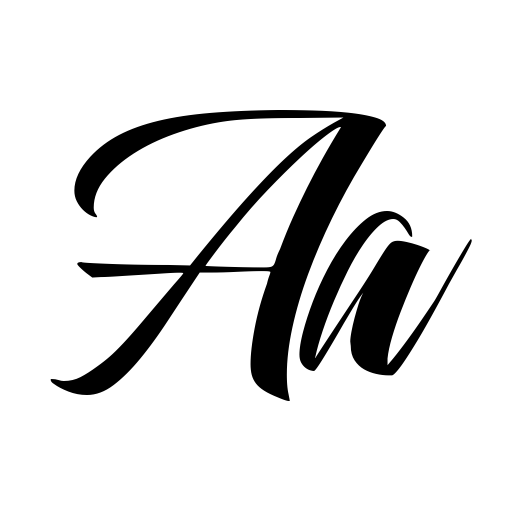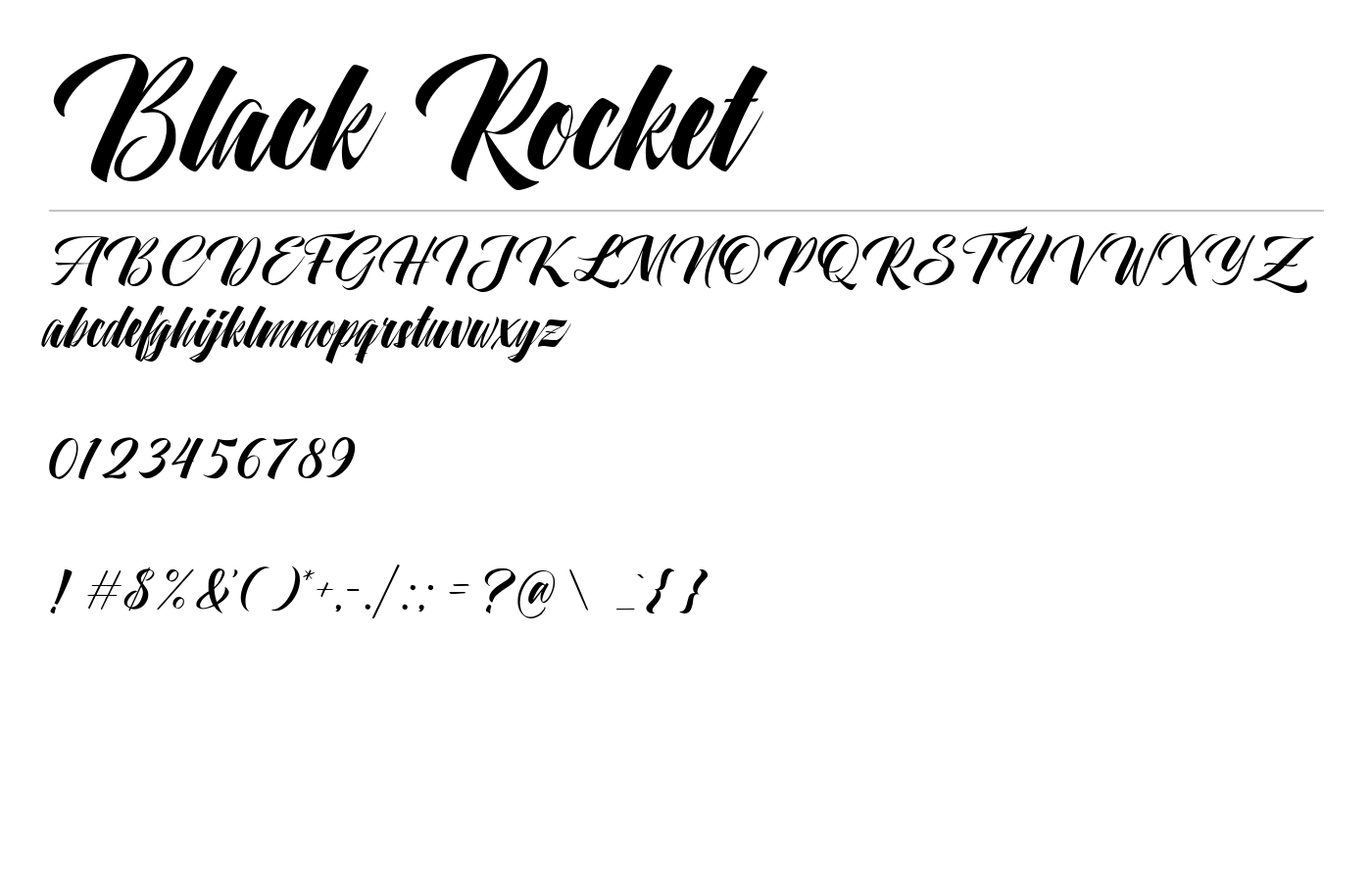
Black Rocket is a stylish script font with a bold, flowing design that combines elegance with a modern touch. Its high contrast strokes and smooth curves make it perfect for fashion, branding, and headline use where a chic, sophisticated impression is desired. This font works well for logos and invitations because of its eye-catching, handwritten feel that adds personality without sacrificing readability.
Black Rocket Font
About Black Rocket Font
| Font family | Black Rocket Font |
| Designer | Octotype |